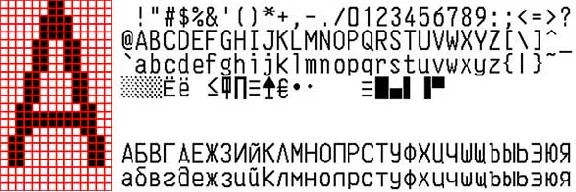
Font of thermal printer VKP-80, version 1
True Type (.TTF), the font of the thermal receipt printer VKP-80. Printer is used in payment terminals and trading kiosks.